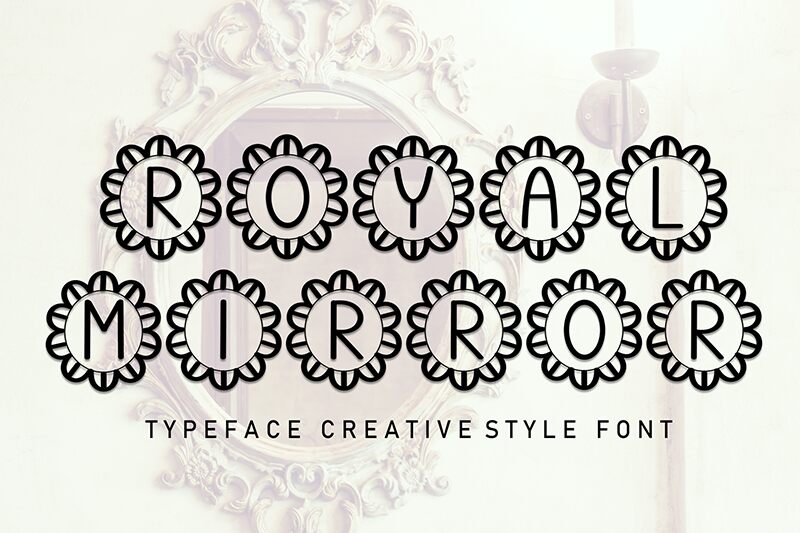
Royal Mirror font by Andi Moz is a free, luxurious, and refined font with an elegant and modern design. It’s sophisticated and fancy, yet legible. The font is symmetrical, decorative, and perfect for those who want to leave a lasting impression on their audience. It is exceptional in its class with a visual decorative style, stylized emphasis which makes it exceptional in its class.
This unique, distinctive font targets branding. Use it in logo or packaging design, on labels of premium products, in menu designs, stationery, or magazine covers. It can also be used in posters, and be applied to headlines, or titles.
This is a sweet and friendly handwritten display font. Cute and fun, this free font is ideal for writing wedding invitations, cards, or any other design that might need a playful touch!